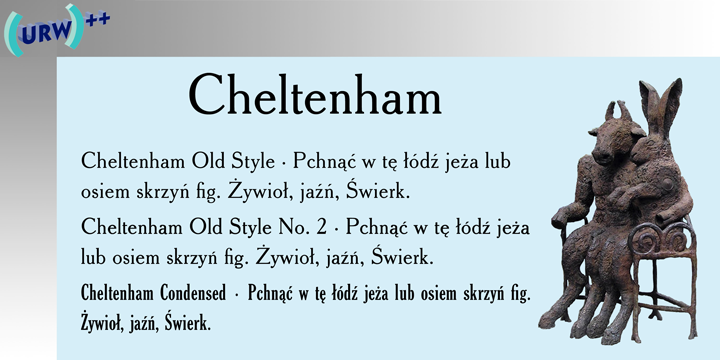
The Cheltenham Font Free Download is a classic and versatile serif font that adds timeless elegance to any design. Perfect for editorial, branding, and print projects, this font combines readability with style. Please note, for commercial use, a license must be purchased. You can download it for free for testing purposes.
With its clean lines and traditional serif design, the Cheltenham Font Free Download is ideal for creating professional, polished designs that stand out. Whether you’re working on a website, logo, or print material, this font brings a sophisticated and timeless feel to your projects.